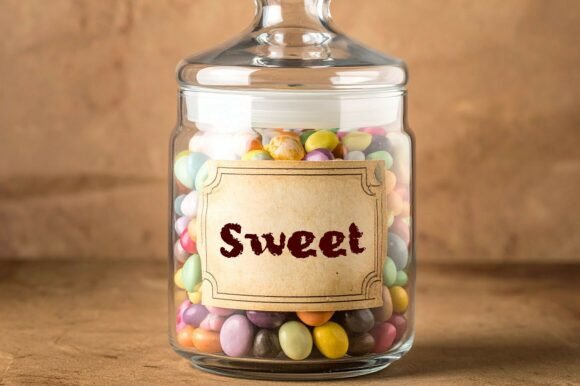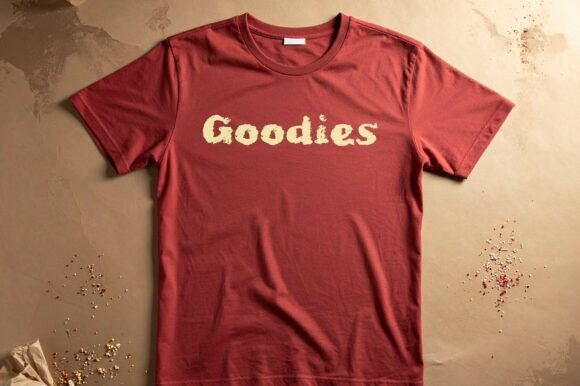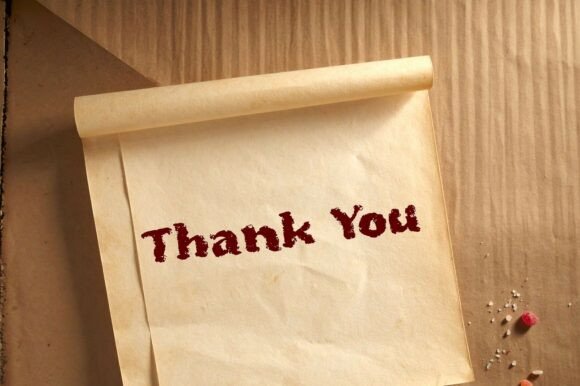
Unveiling the Richness of Brown Chocolate Font: A Royal Treat for Designers
In the world of typography, few fonts manage to evoke the senses as effectively as the “Brown Chocolate” font. This display font is a masterful blend of warmth, indulgence, and luxury, reminiscent of premium cocoa. With its distinctive texture and nostalgic yet refined aura, “Brown Chocolate” seamlessly fuses regality with a touch of sophistication, making it an ideal choice for designers seeking to add a dash of elegance to their projects.
The Essence of Brown Chocolate Font
“Brown Chocolate” is more than just a font; it’s an experience. It combines enchanting elegance with a durable impact, making it perfect for projects that aim to weave aesthetic finesse with substantial substance. Whether you’re a seasoned designer or a budding creative, this font is sure to impress. Its standard punctuation glyphs ensure that it integrates seamlessly with popular design platforms such as Photoshop and Illustrator, promoting an efficient workflow.
One of the standout features of “Brown Chocolate” is its adaptability. This font flourishes in various environments, making it an exemplary choice for fine-tuning a unique identity for artisan chocolates, coffee establishments, or bakery brands. It’s perfect for underlining top-caliber craftsmanship and comforting joy, evoking feelings of warmth and indulgence.
Design Applications
Imagine “Brown Chocolate” enriching your product packaging, acting as a cornerstone for stylish menu layouts, or enhancing your brand’s visual identity. This font is well-suited for a variety of design applications, including:
- Product packaging: Add a touch of luxury to your product packaging with “Brown Chocolate”. Its distinctive texture and nostalgic aura make it perfect for artisan chocolates, specialty foods, or high-end products.
- Menu layouts: Create stylish and inviting menu layouts for your restaurant, café, or bakery with “Brown Chocolate”. Its elegant and refined design ensures that your menu stands out.
- Branding and identity: Establish a unique identity for your brand with “Brown Chocolate”. Its adaptability and versatility make it an excellent choice for crafting a distinctive visual identity.
Why Choose Brown Chocolate Font?
There are several reasons why “Brown Chocolate” font stands out from the rest:
- Elegance and sophistication: “Brown Chocolate” exudes elegance and sophistication, making it perfect for high-end brands and luxury products.
- Adaptability: This font adapts seamlessly to various design applications and environments.
- Easy integration: “Brown Chocolate” integrates seamlessly with popular design platforms, ensuring an efficient workflow.
- Distinctive texture: The font’s distinctive texture adds a touch of warmth and indulgence to any design.
In conclusion, “Brown Chocolate” font is a royal treat for designers and crafters. Its unique blend of elegance, sophistication, and adaptability makes it an excellent choice for a wide range of design applications. Whether you’re looking to create a luxurious brand identity, craft a stylish menu layout, or add a touch of warmth to your product packaging, “Brown Chocolate” is the perfect font for you. So, indulge in the richness of “Brown Chocolate” and elevate your designs to new heights.
With its enchanting elegance and durable impact, “Brown Chocolate” font is sure to leave a lasting impression on your audience. So, why wait? Explore the world of “Brown Chocolate” and discover a font that will take your designs to the next level.